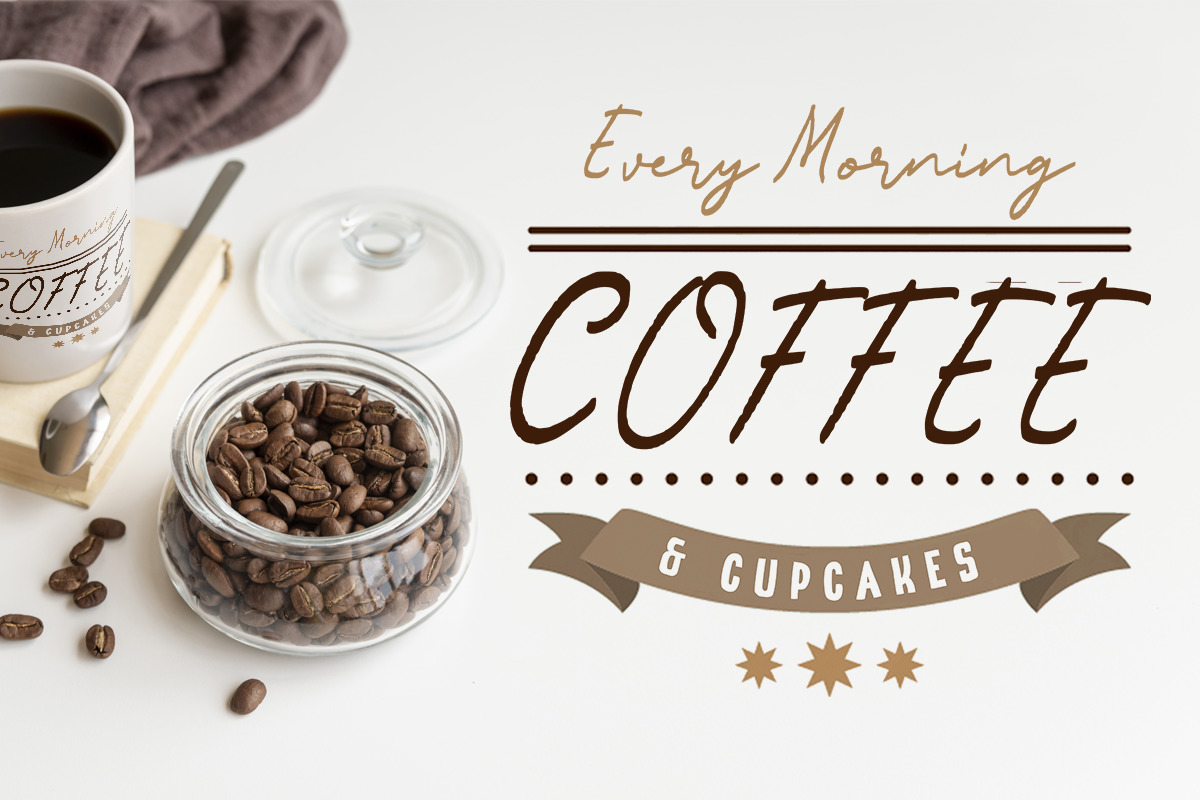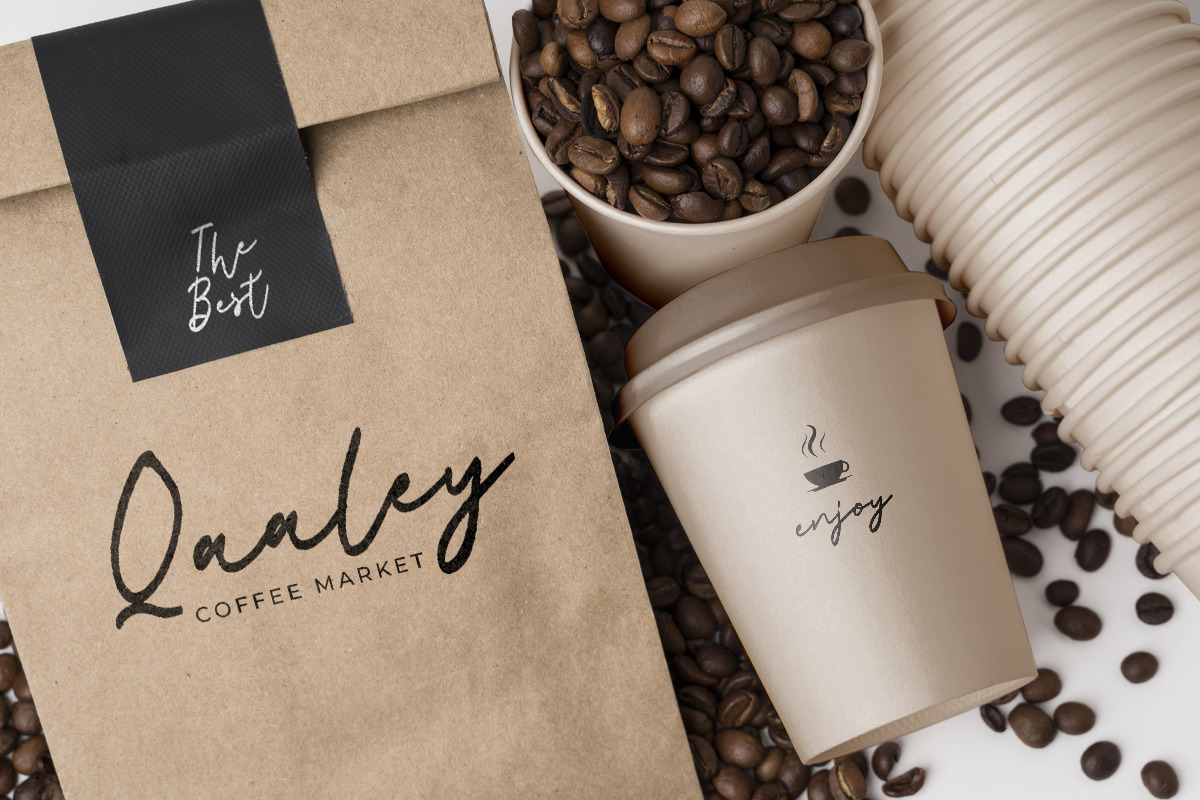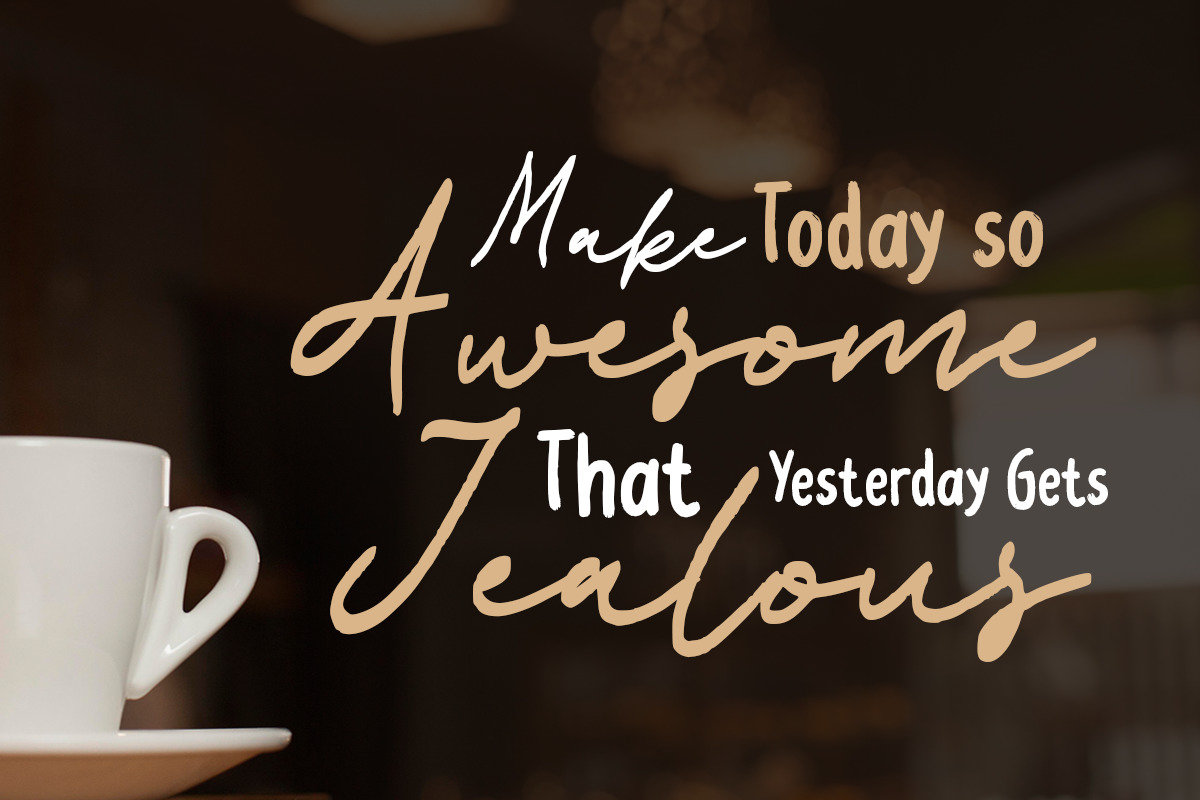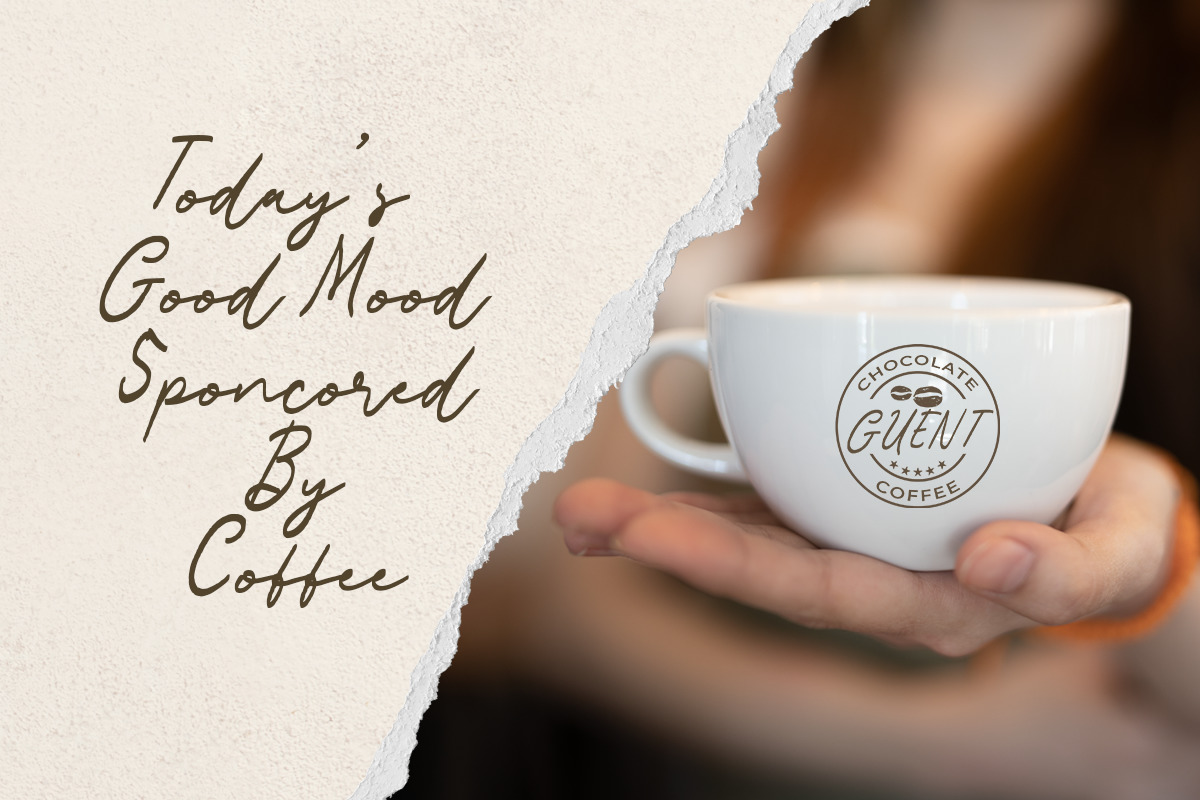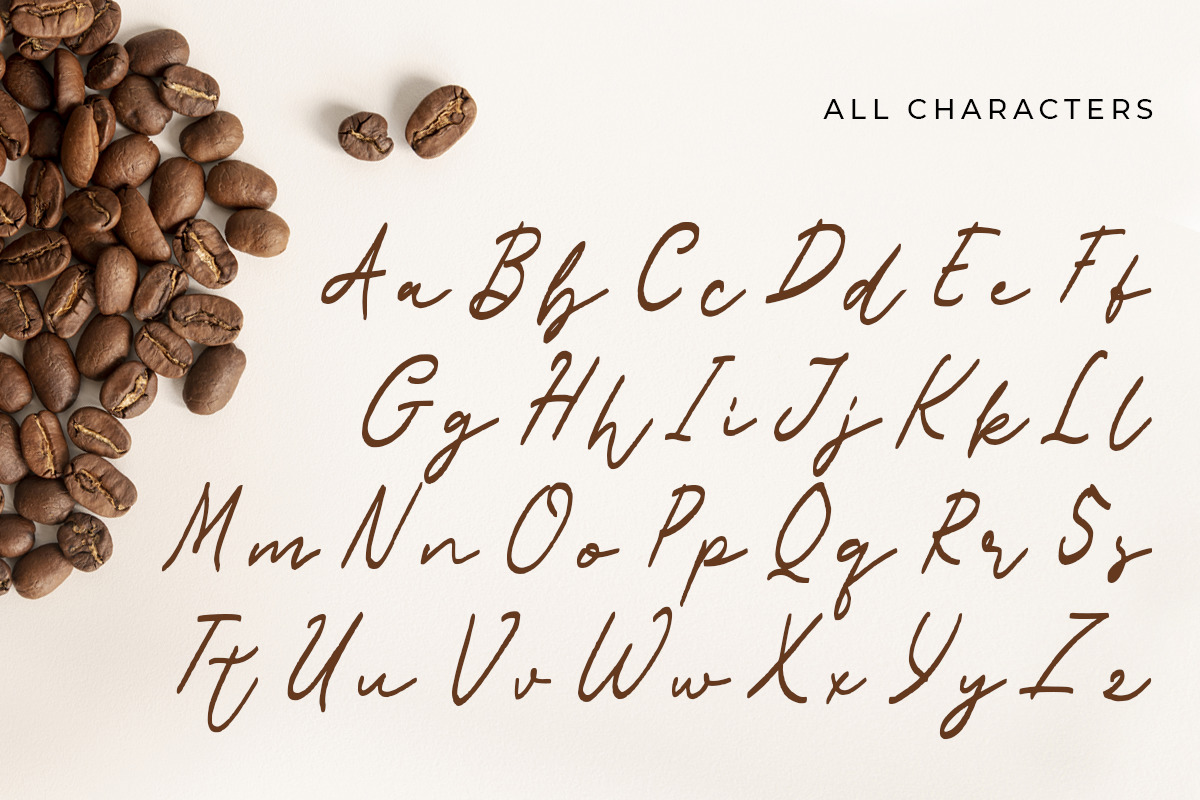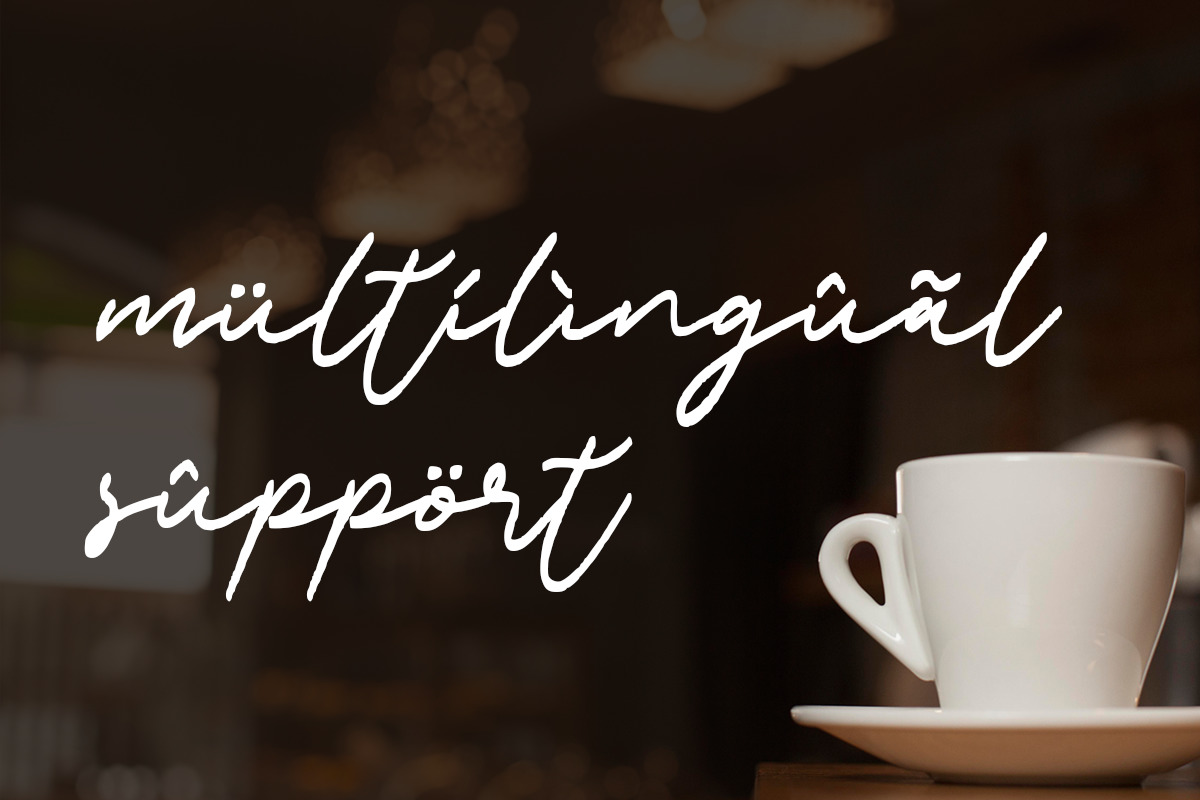
Cafein – Authentic Handwritten Font
Cafein is a Authentic Handwritten font
This unique typeface is perfect for designers who want to add a personal touch to their designs. With its authentic and natural feel, Cafein is perfect for use in logos, branding, social media graphics, and more. Plus, its handwritten style adds a touch of personality and uniqueness that will help your designs stand out. So, whether you’re designing for a coffee shop, a bakery, or any other food-related business, Cafein is the perfect choice for creating a warm and inviting feel.
- Uppercase and lowercase letters
- Multilingual characters
- Numerals & Punctuations